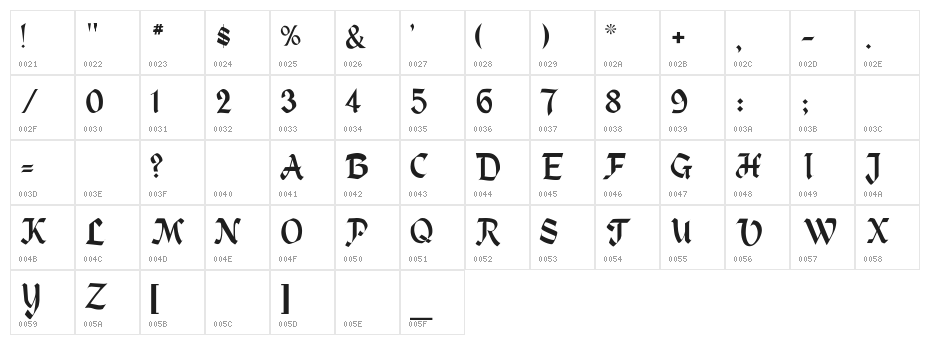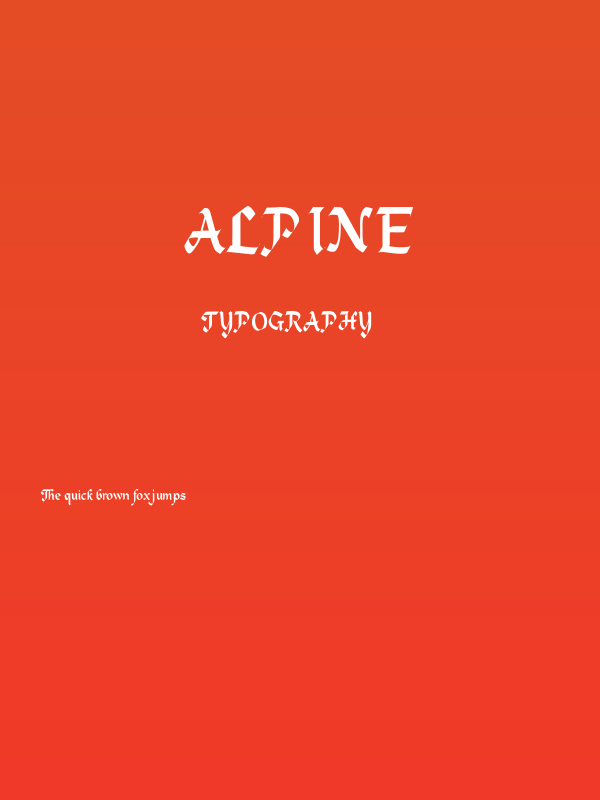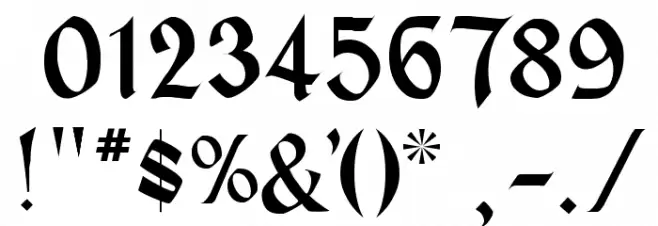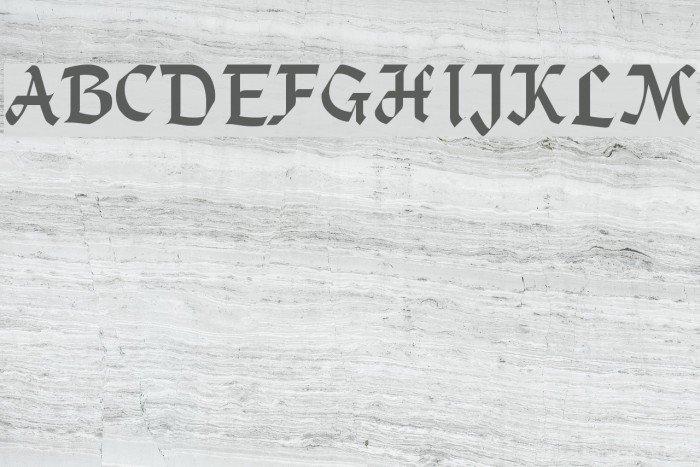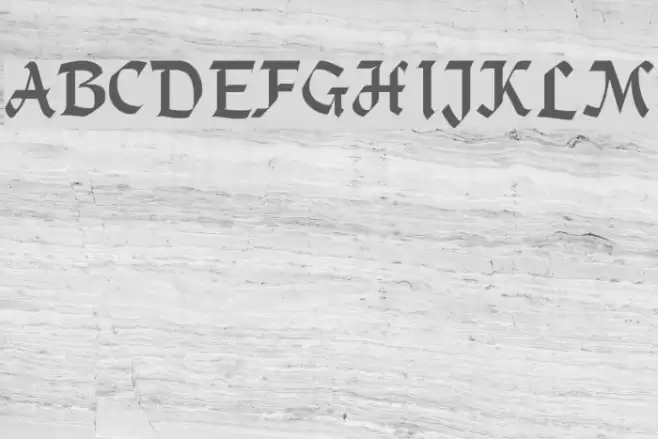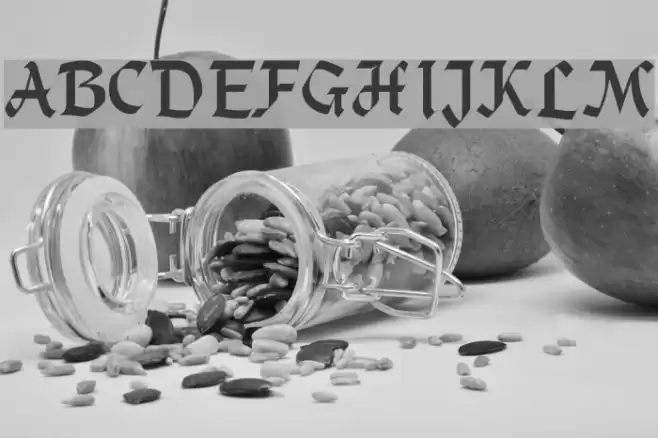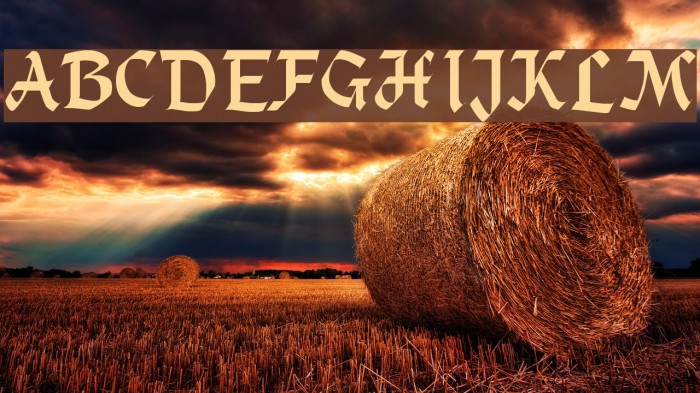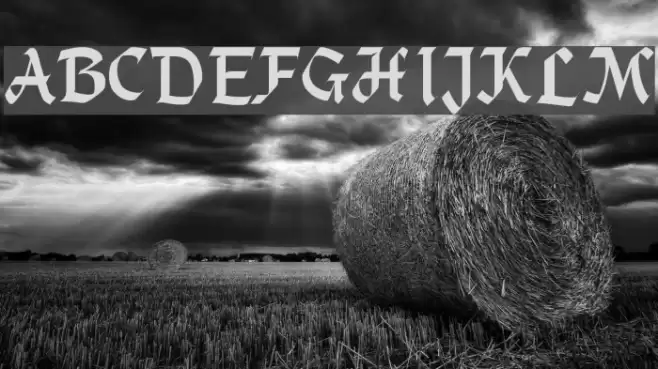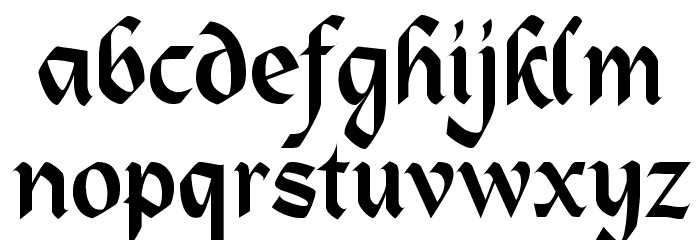
Alpine Font
✎ Gothic
| Caso de uso | Headlines, Logos, Decorative text |
| Projetos propostos | Ideal for historical documents, certificates, book covers, and branding that requires a classic, medieval touch. |